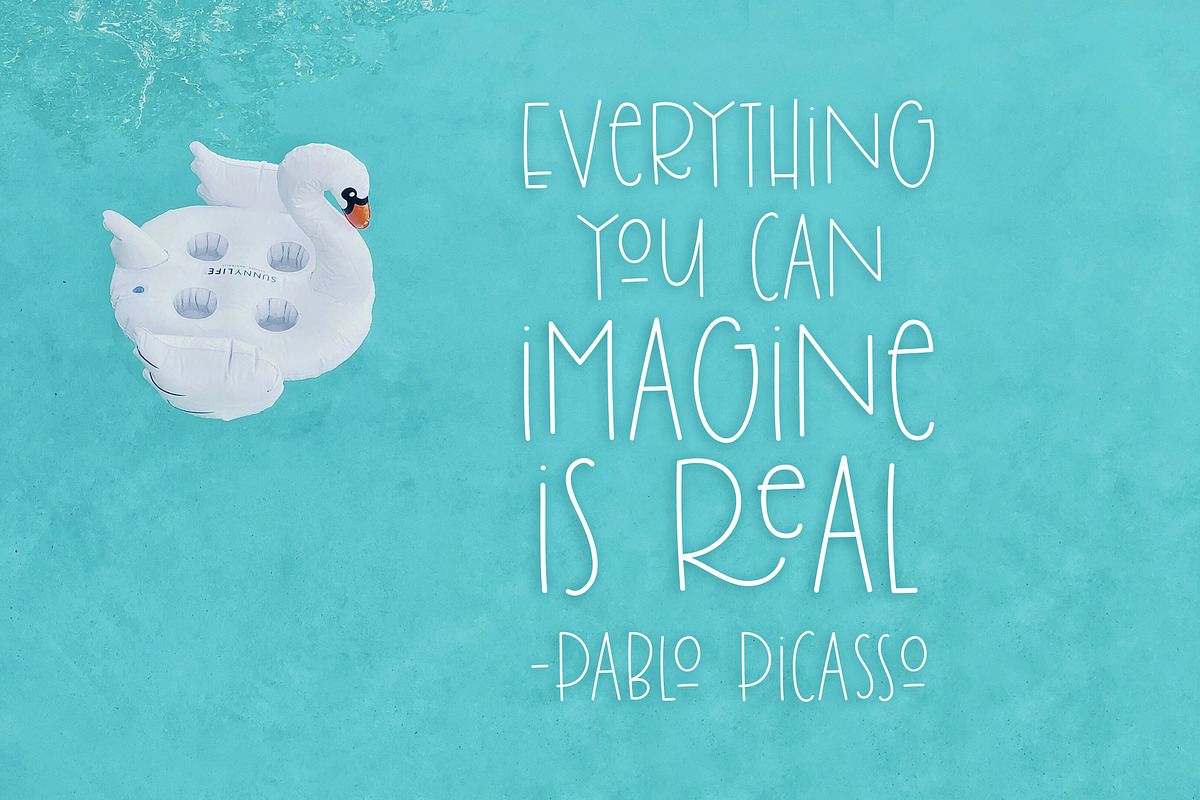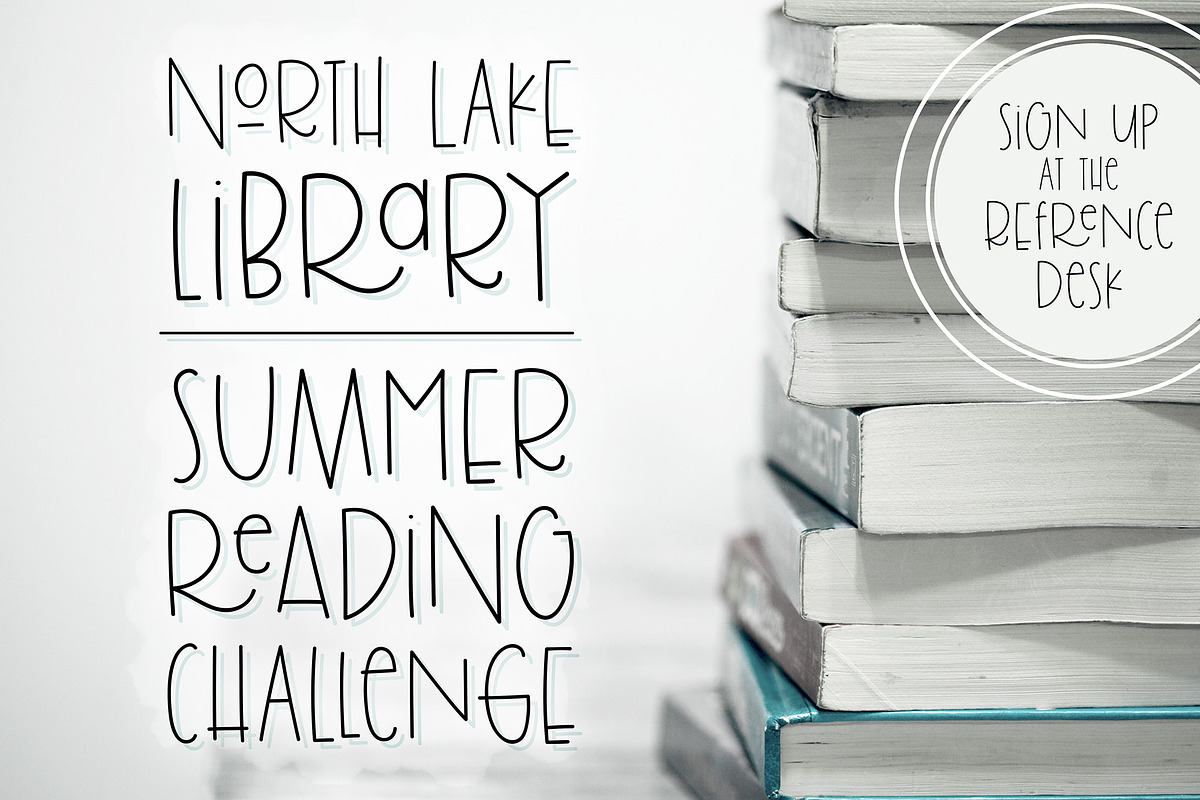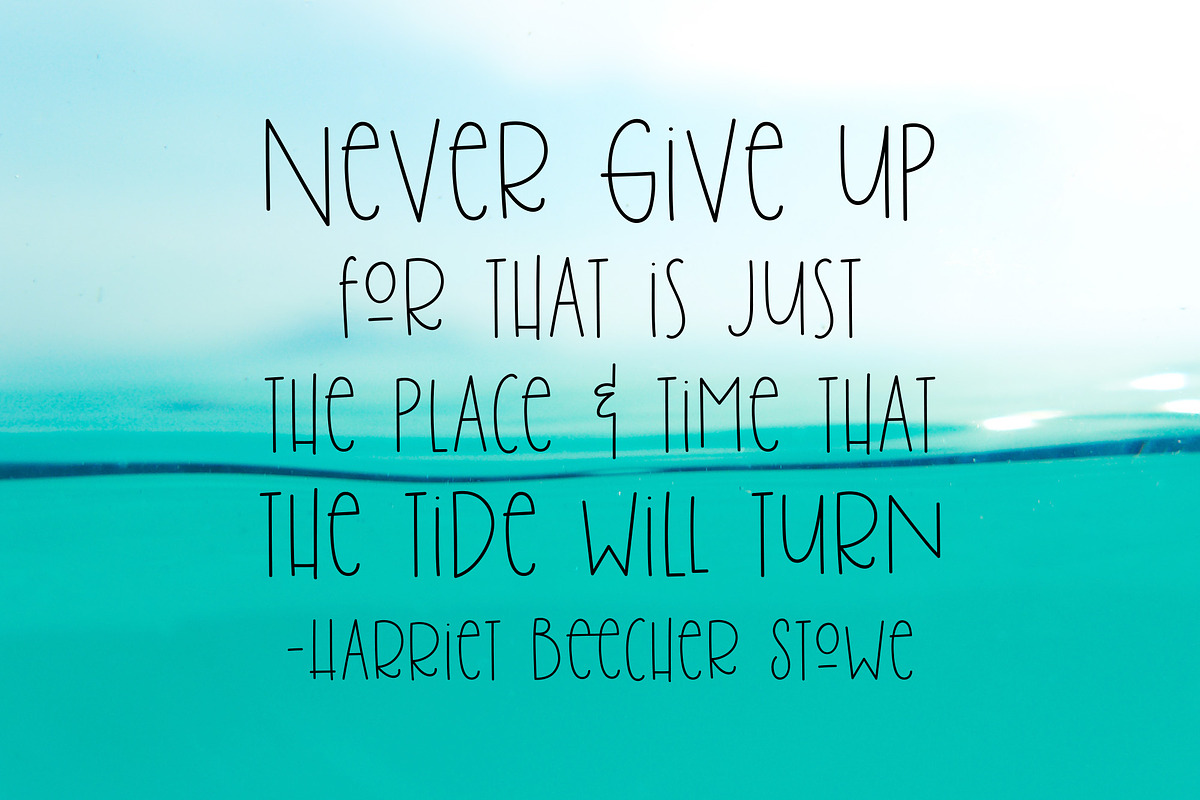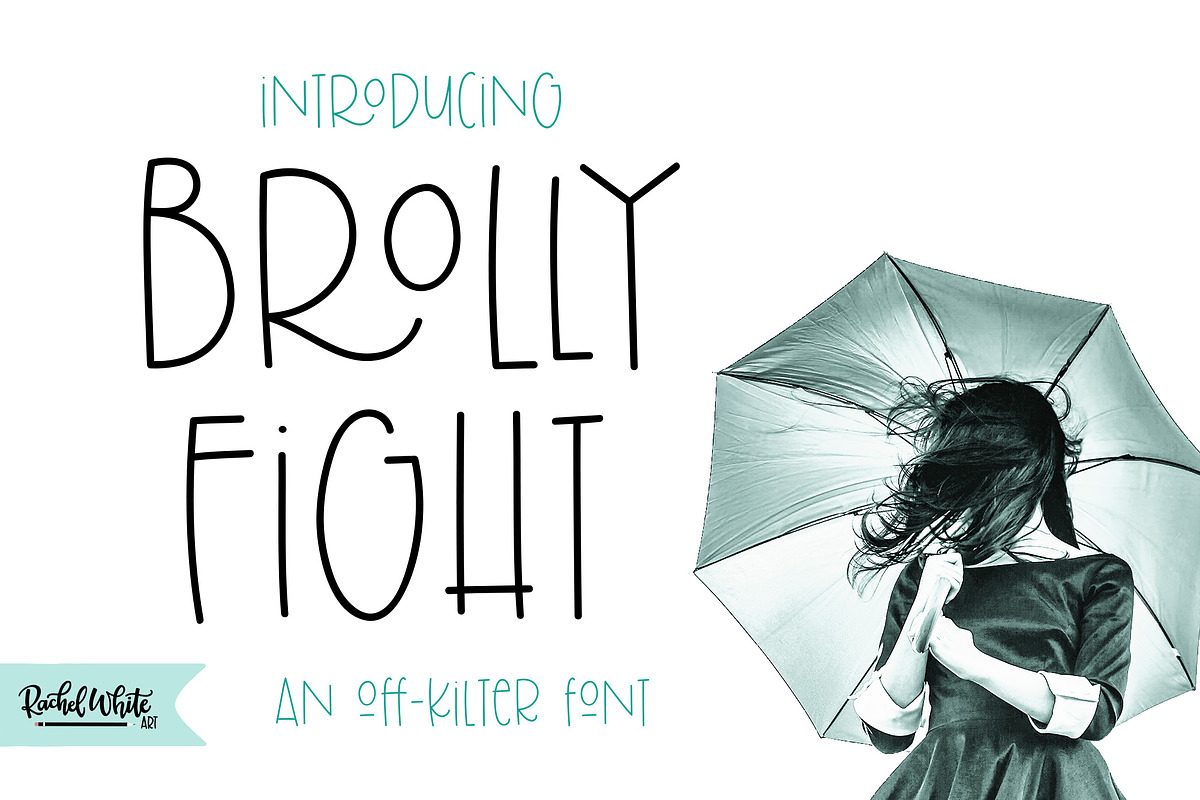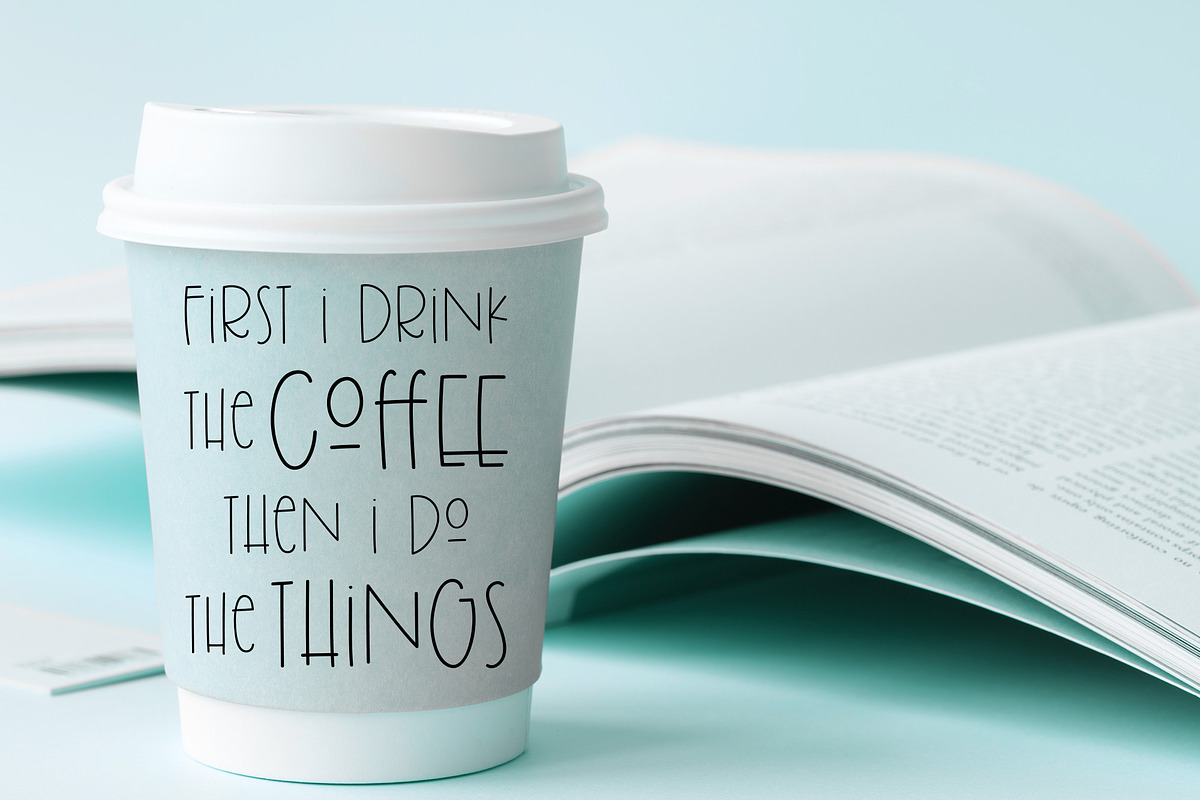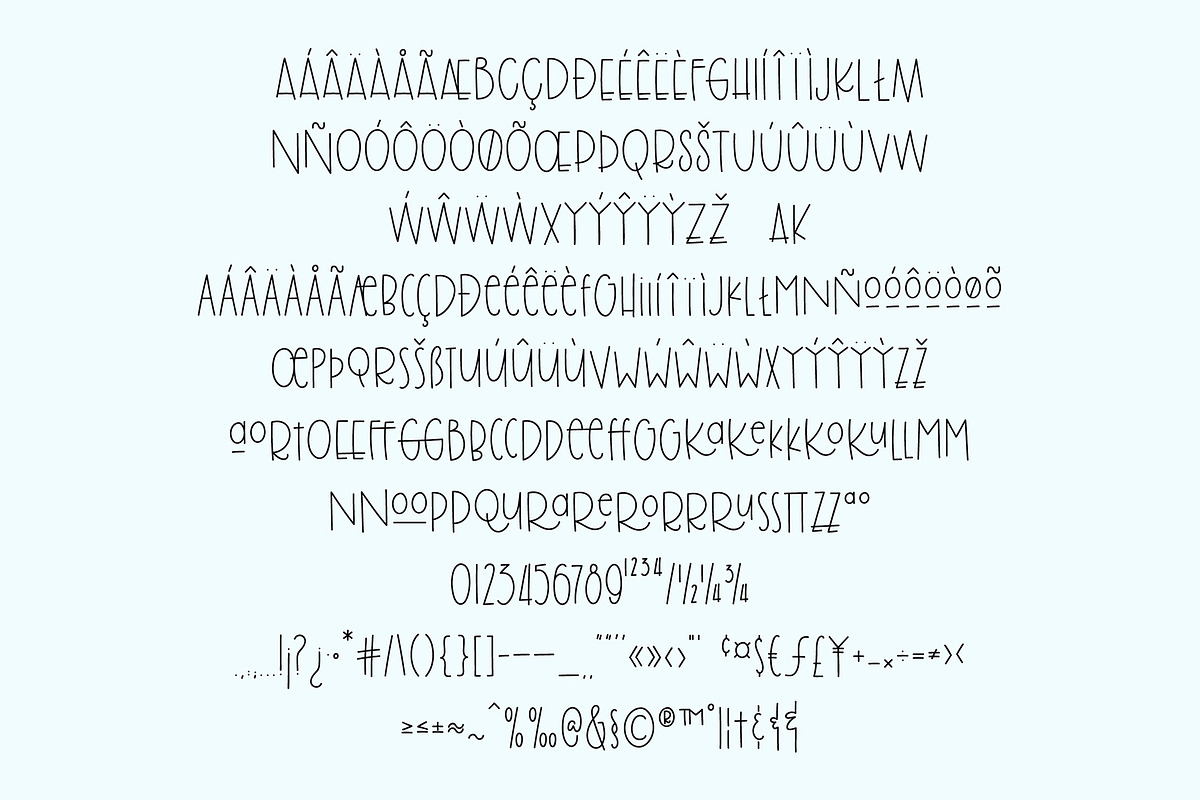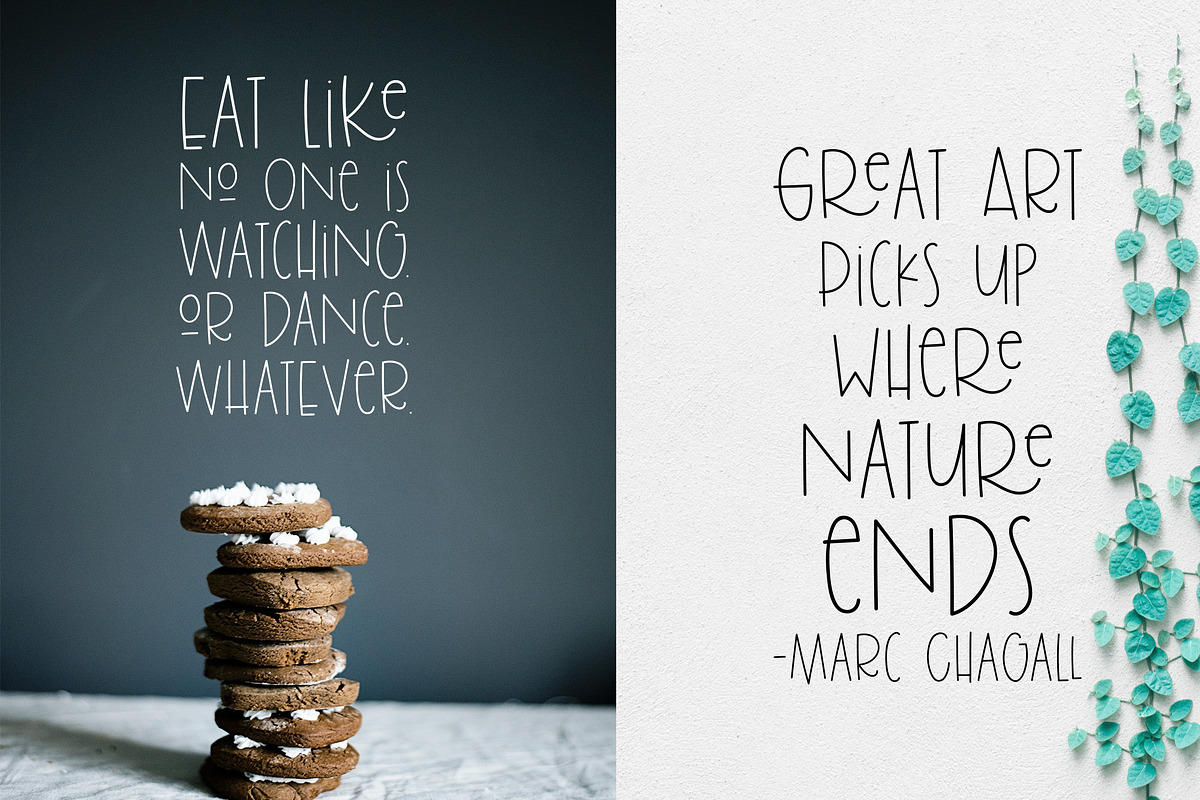
Brolly Fight, an off kilter font
Brolly Fight is a fun, off-kilter caps font with a touch of weird and wonderful charm. Its slightly wobbly letterforms give it a handmade, playful look that’s perfect for kids’ designs, packaging, posters, branding, and anything that needs a little personality.
It’s cute, a little odd, and full of character—great for designs that want to stand out while still staying lighthearted and fun.
There are four alternate ampersands, and fun double letter ligatures, as well as playful ligatures for r, k + a, e, o, u combinations. That high lowercase o with an underscore has a twin lowercase a alternate you can access too!
Mix and match capitals and lowercase (plus the ligatures & alternates) to create unique text designs
Great for: Kids’ products, posters, stickers, branding, packaging, headlines
- a ton of ligatures and alternates
- multi-lingual support for Western European languages
- There are four alternate ampersands, and fun double letter ligatures, as well as playful ligatures for r, k + a, e, o, u combinations.
- That high lowercase o with an underscore has a twin lowercase a alternate you can access too!